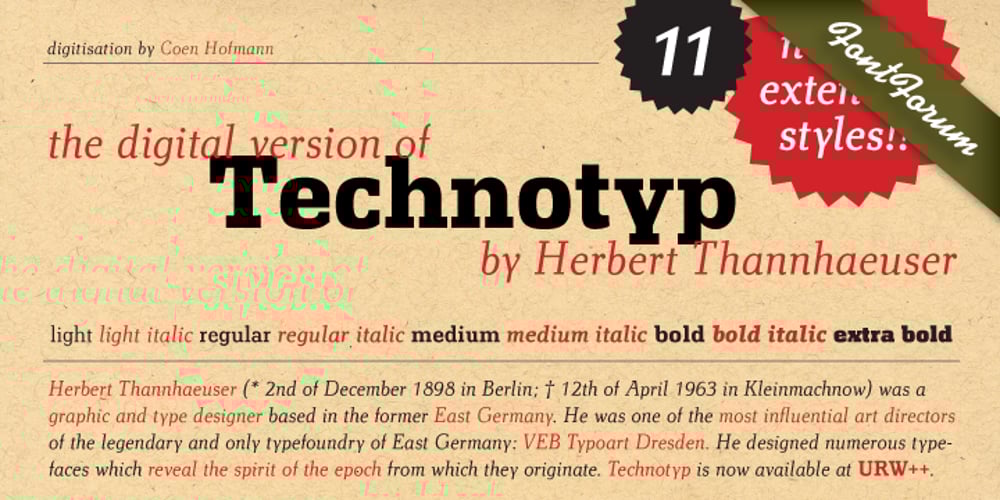
Technotyp Font Family was designed by Coen Hofmann and published by URW Type Foundry. Technotyp contains 12 styles and family package options. The digital font Technotyp is based on the hot metal typeface created by the German typographer and type designer Herbert Thannhaeuser (1898-1963) for the former East German type foundry Typoart in Dresden. In the typography book ‘Der Schriftsetzer’ (Fachbuchverlag, Leipzig, 1952), by Paul Fritzsche, this absolutely beautiful slab serif design is presented in all its variations. Fritzsche remarked that – because of its rather condensed form and its relatively long ascenders – the ‘Werkschrift’ of the Technotyp (comparable with our ‘Regular’) seemed to be very well suited to serve as a text face, and recommended for this purpose that the face be cut for the composing machine. However, this never happened and the entire Technotyp family was made available for hand composition only. This is finally changing and being remedied for good now: URW++ proudly presents the new digital version of this really charming font family with its distinct flavor of the 1950s, adding it to the other digital renditions of Herbert Thannhaeuser fonts at URW++, namely Garamond No. 4 and Magna. The original Typoart family had an italic style for the light version only. The new digital version of Technotyp includes italic styles for the regular, medium and bold weights as well, enhancing the family to meet today’s standards and requirements for professional type setting. To further increase its usefulness, Cyrillic faces were created, too. True to the standard for all digital fonts at URW++, the character set for Technotyp covers all West- and East European languages.